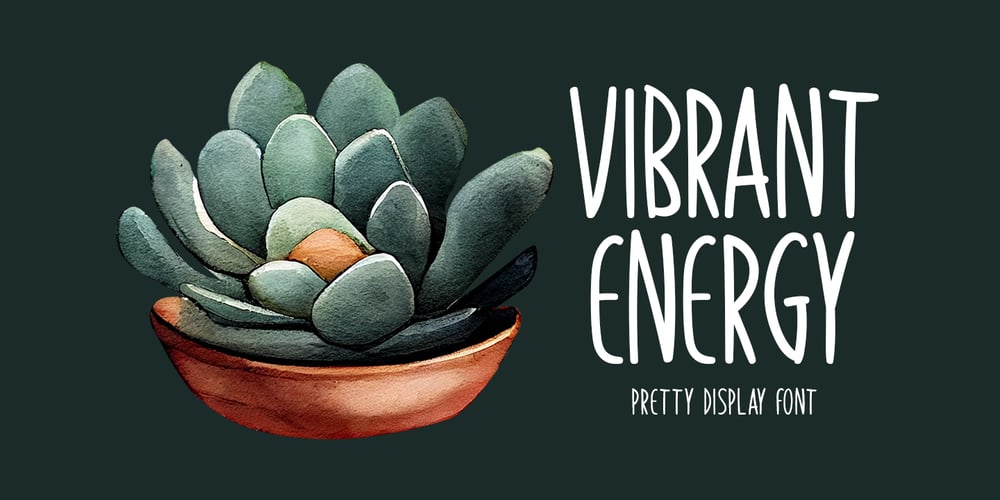
Vibrant Energy
Vibrant Energy font
Vibrant Energy Font Family was designed by Md Shohail Bhuian and published by Seemly Fonts. Vibrant Energy contains 1 styles and family package options. Vibrant Energy is a striking display font. It can easily be matched to an incredibly large set of projects, so add it to your creative ideas and notice how it makes them stand out!